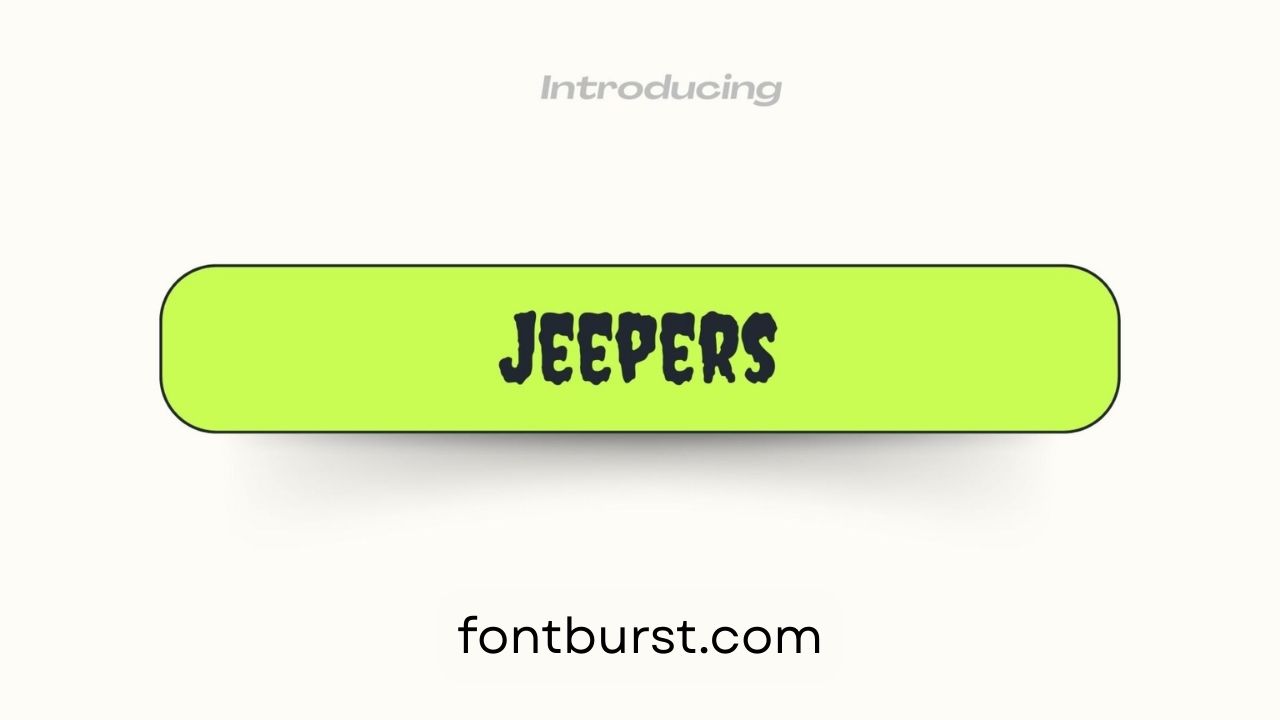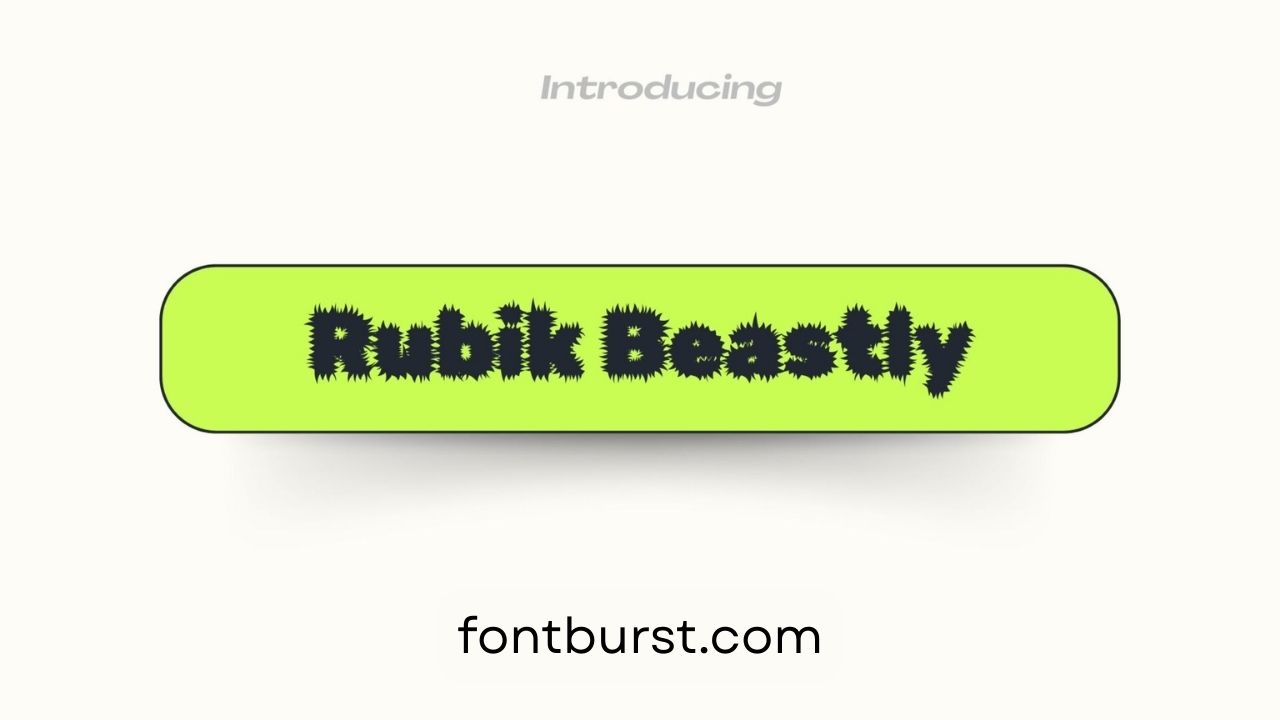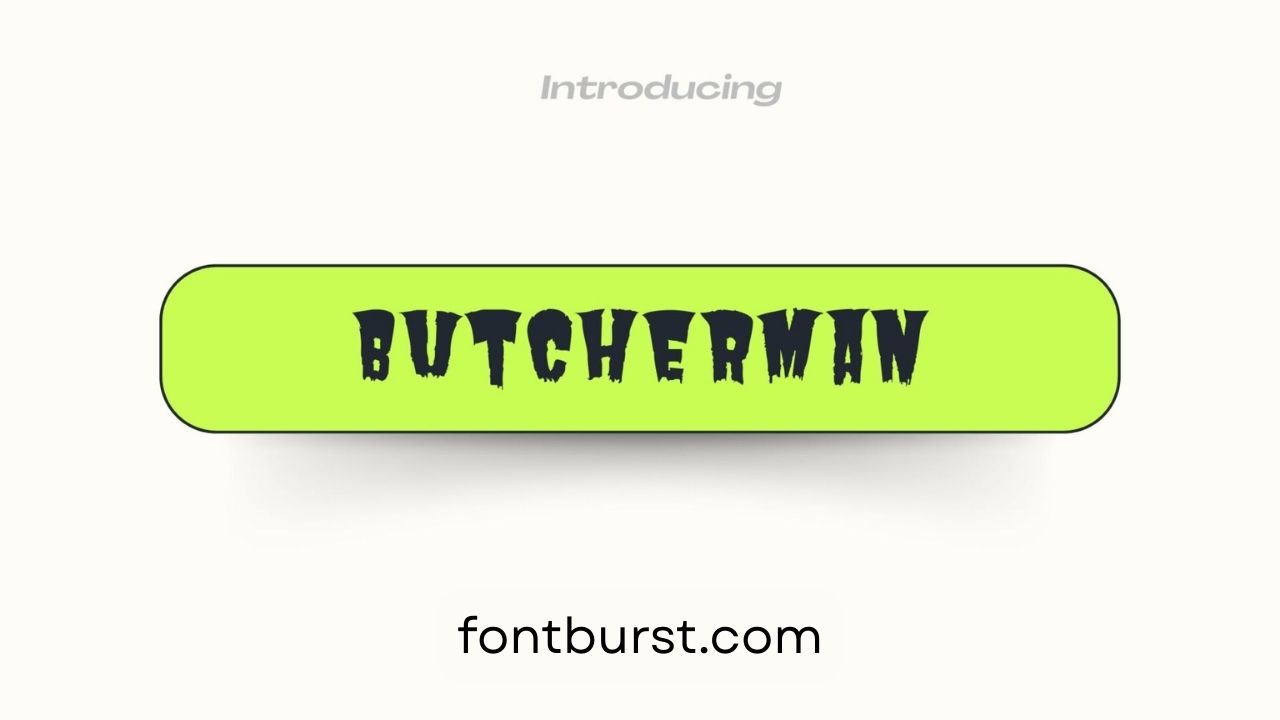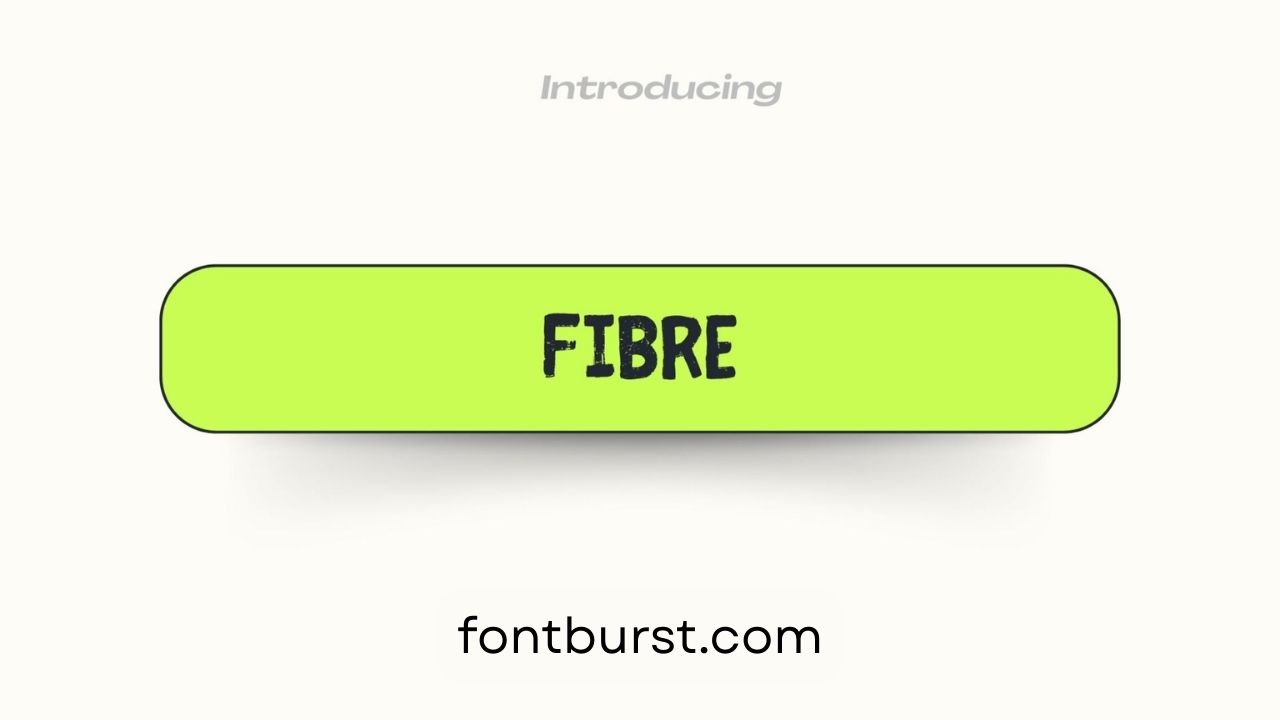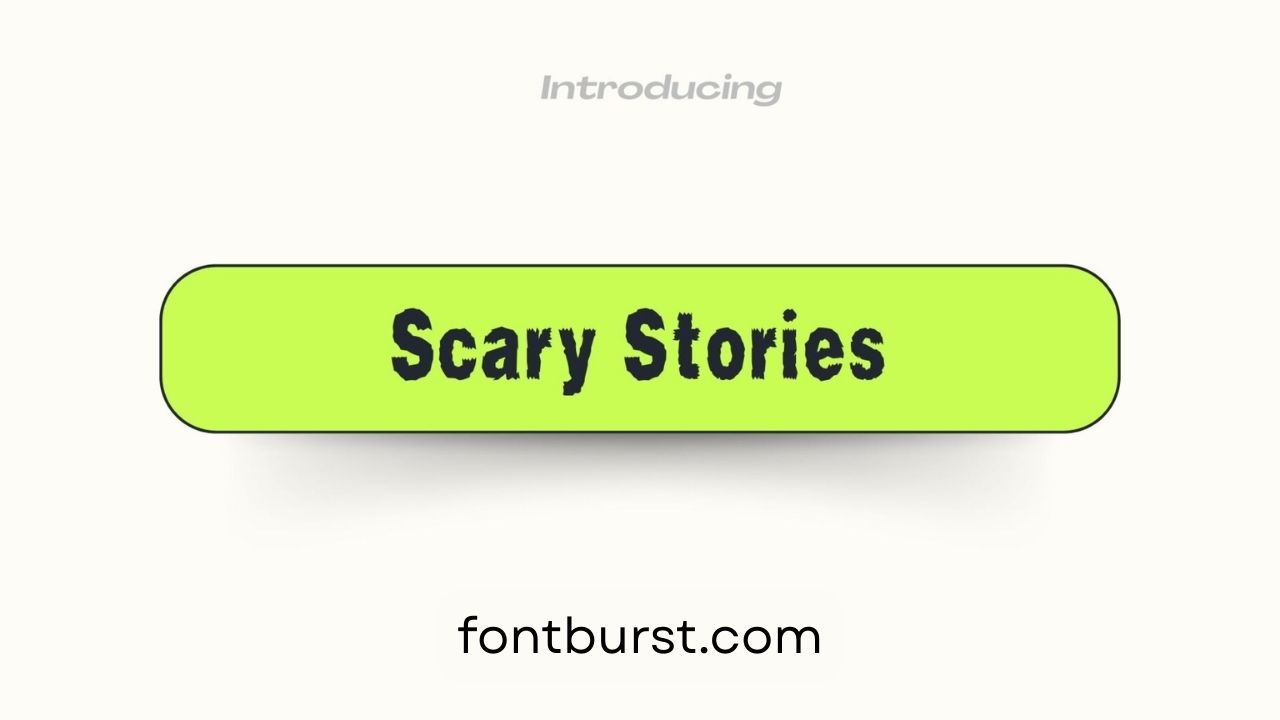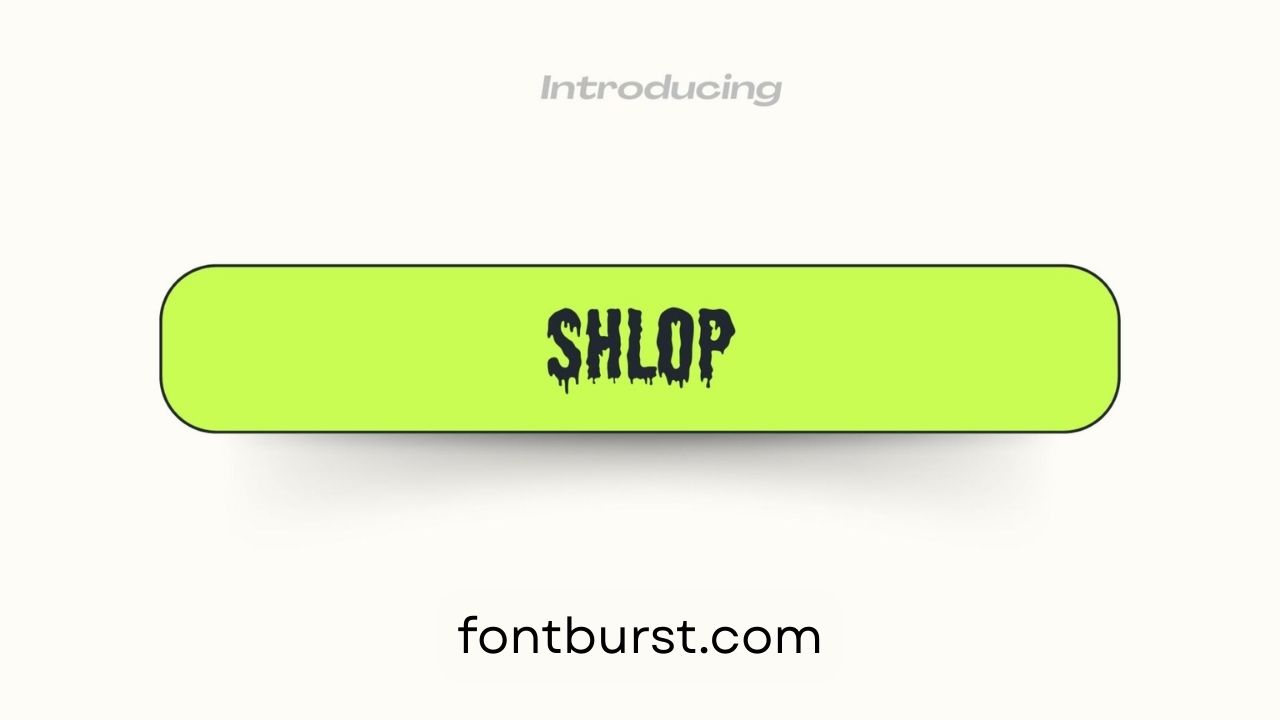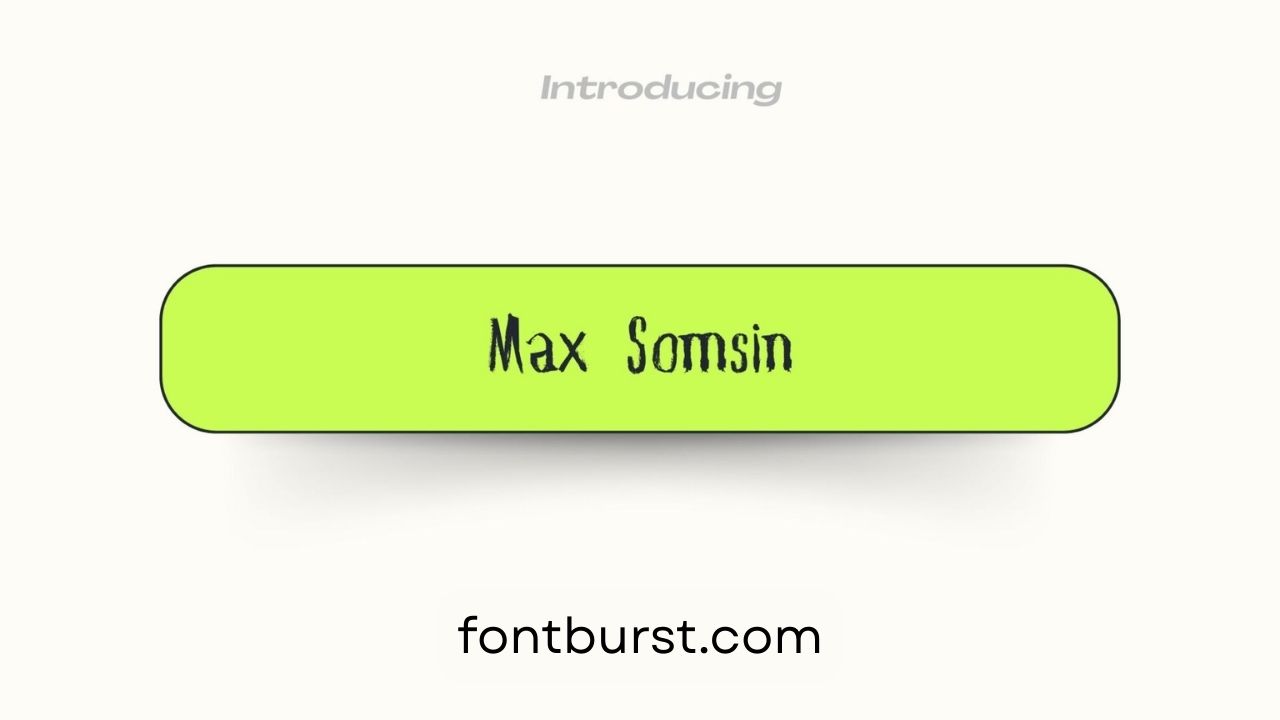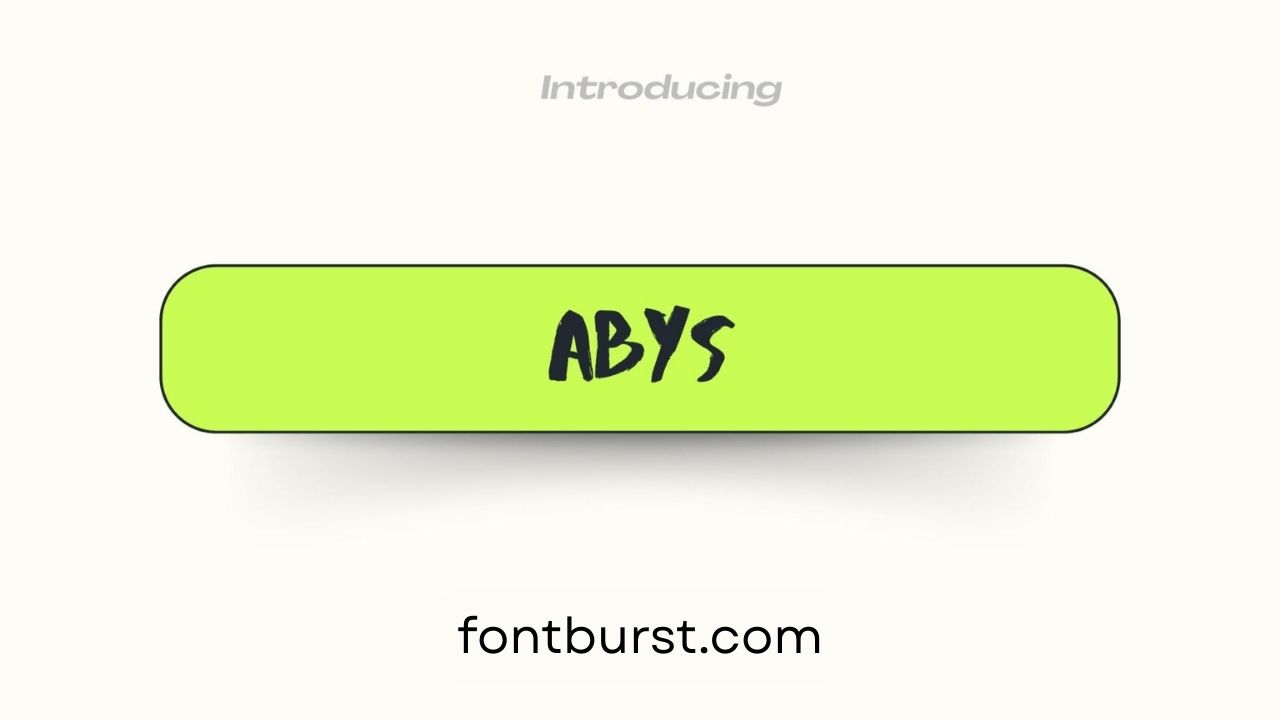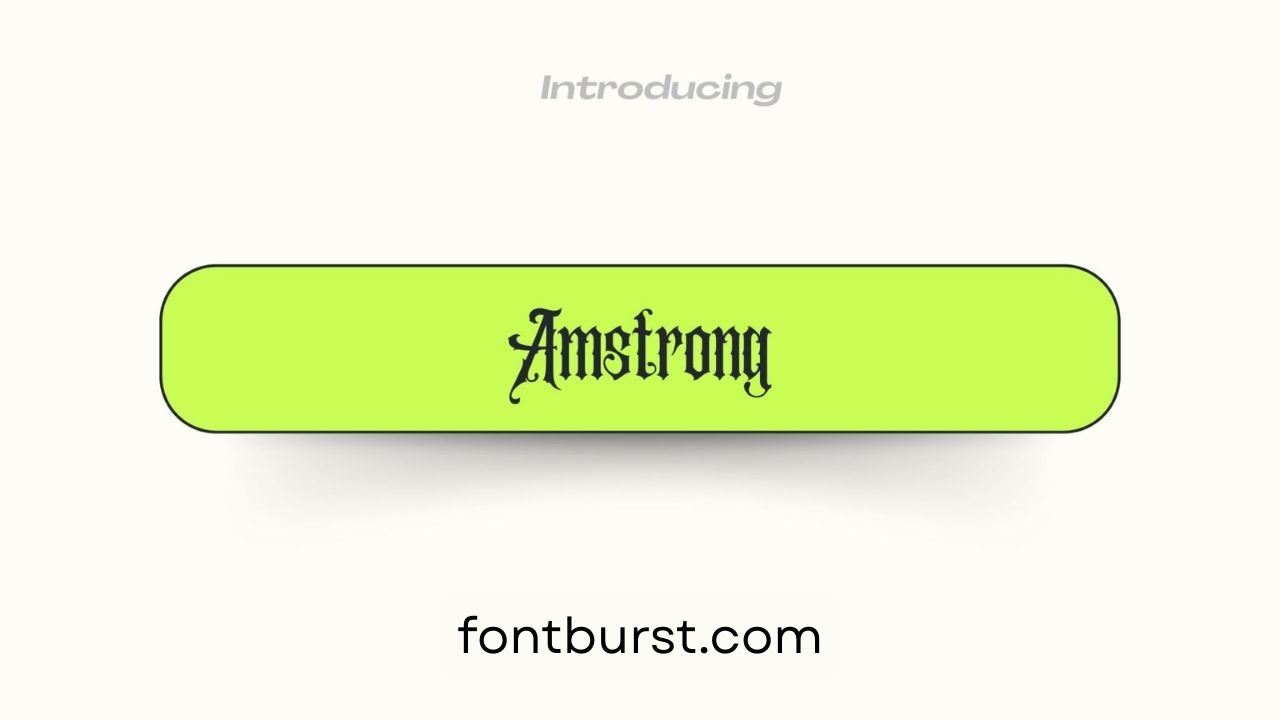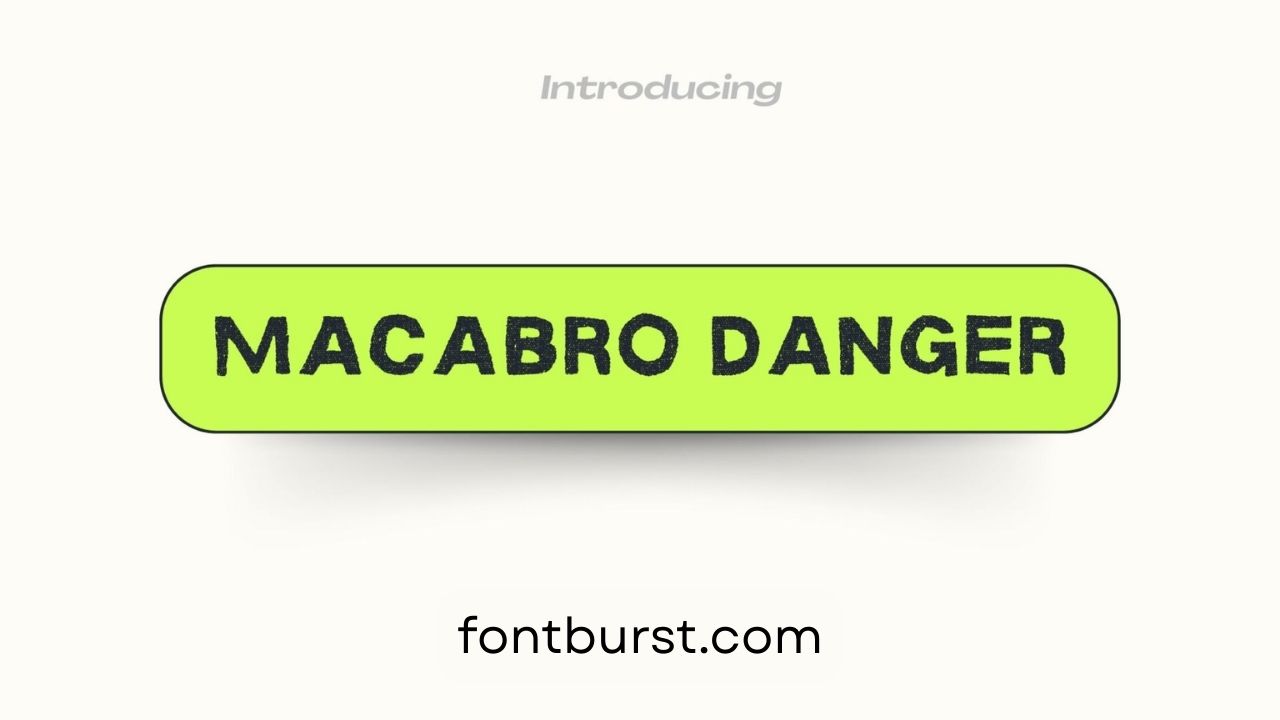
10 Spooky Fonts in Canva
If you’re looking for the perfect spooky font for your Canva assignments, you’ve come to the right place! There are many scary & spooky fonts in Canva that you can use to make your designs more scary. Picking the right font matters whether you’re making scary Halloween invites, posts for social media, or posters.
This article will talk about 10 scary fonts that you can find on Canva and use to make your designs more scary. Each font has its own style that works well with scary projects or any design that needs a dark, mysterious appeal.
The BEST Spooky Fonts in Canva for Halloween
Jeepers Font
The best font to use when you want to give your designs a whimsical yet eerie feel is Jeepers. It appears as though it has been scratched onto the screen due to its uneven, jagged letters. It has a playful yet retro horror vibe, making it ideal for spooky signage or flyers for Halloween parties.
Rubik Beastly Font
Rubik Beastly brings creepy fonts into the modern era. It’s big, angular, and edgy, with a modern look that brings out the fear in you. For posters or banners with a scary theme, this font works well for big headlines and titles that stand out.
Butcherman Font
If you like scary movies, you have to see Butcherman. Because it looks like it was torn by claws, it’s great for slasher-themed designs or Halloween graphics. Its blood-splattered look makes you feel scared right away and gives any project a classic scary movie vibe.
Fibre Font
Fibre is a softer choice that is still creepy. There are some rough spots on it, and it looks old and worn. It’s not as big as some other scary fonts, but it’s great for giving simple designs a creepy feel or for people who want a grunge look with a hint of mystery.
Scary Stories Font
The Scary Stories font is full of scary ideas from old horror book titles. This font looks like the titles of old, scary books, which makes it perfect for making scary book covers or event posters. It makes me think of a haunted house because of the way it looks.
Shlop Font
To make something that screams “cartoonish horror,” use the Shlop font. It’s chunky and shaky, and it seems like it’s melting off the screen. This font works best for spooky designs that are lighter and more fun. It’s great for Halloween projects for kids or fun graphics for social media.
Max Somsin Font
Max Somsin is moody, dark, and scary. This font is great for making an old-fashioned, scary atmosphere that makes you think of graveyards and haunted houses. It looks scary because of its clean, sharp lines, making it perfect for formal but creepy designs like invitations to haunted house events.
Abys Font
Abys is just as dark and scary as its name sounds. Because its letters are rough and jagged, they give off a chaotic and unsettling vibe, which makes it perfect for making movie posters or designs with a thriller theme. This font sets a dark tone right away that stands out.
Amstrong Font
There is a slightly scary edge to Amstrong’s presence that makes it stand out. It’s smooth but a little rough, which makes it great for scary designs that still need to be readable. You can use it for scary quotes, big headlines, or Halloween sale signs.
Macabro Danger Font
The most scary font ever, Macabro Danger has rough edges and uneven strokes. It’s a great choice for horror-themed designs because it looks scary and dangerous. Macabro Danger makes your writing more intense, whether you’re making a cover for a scary book or a flyer for a haunted attraction.